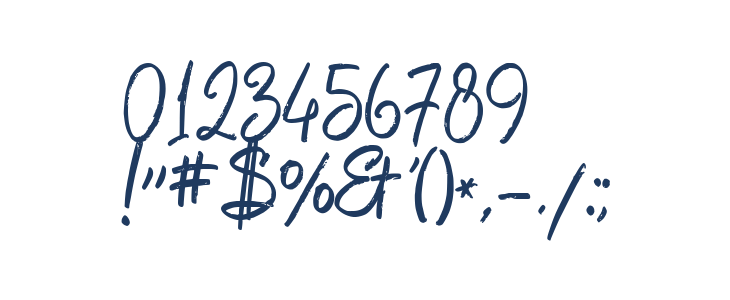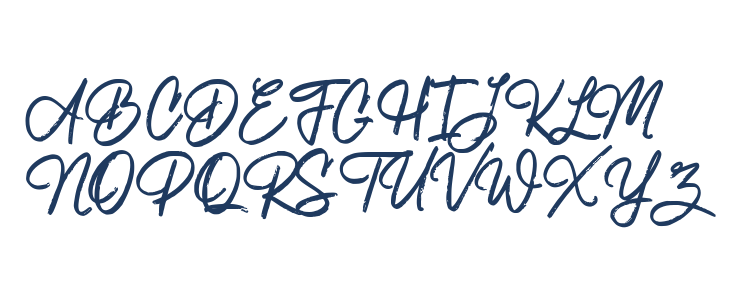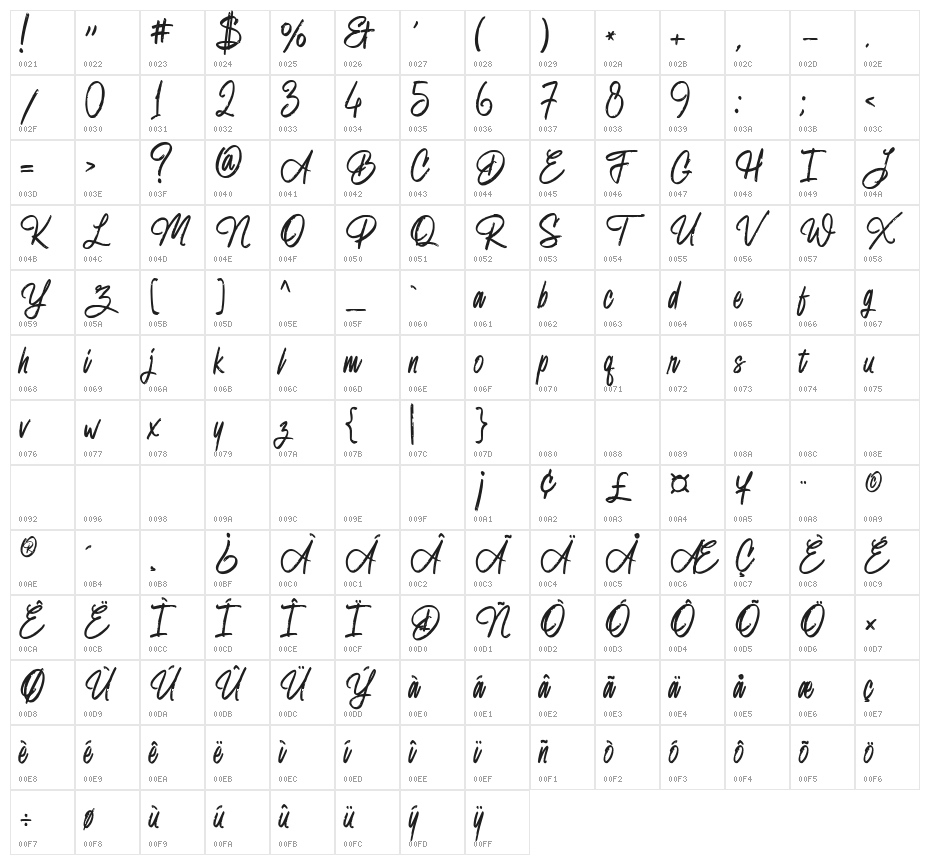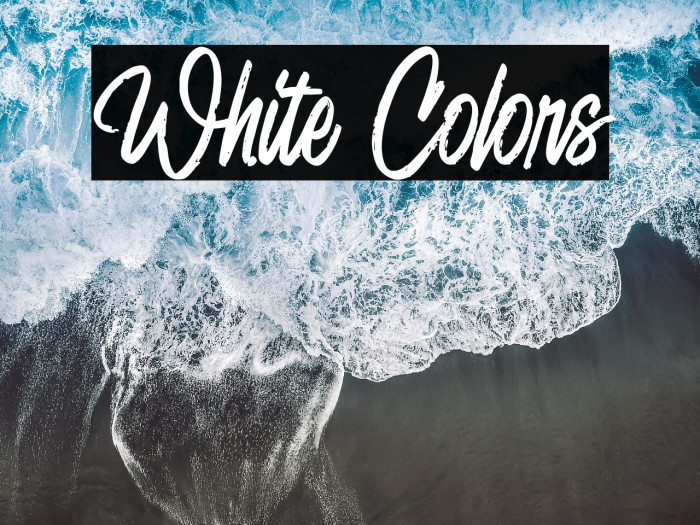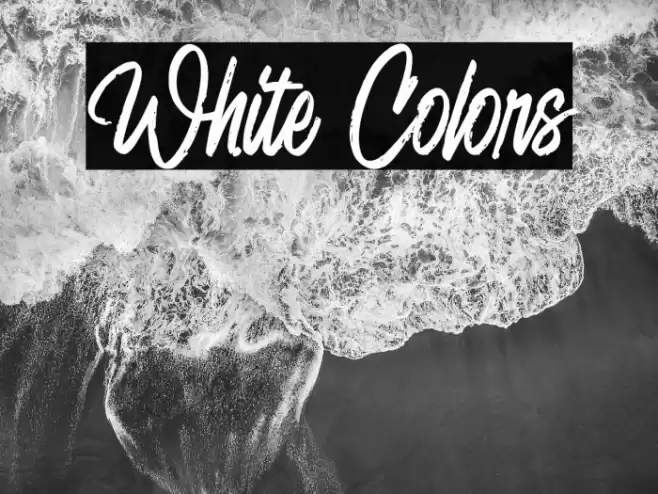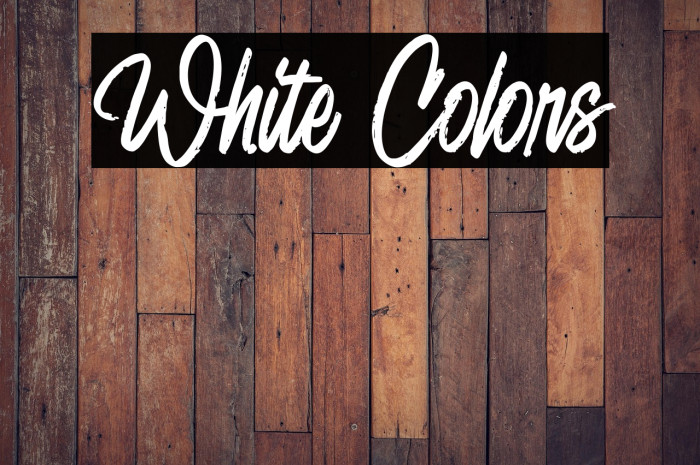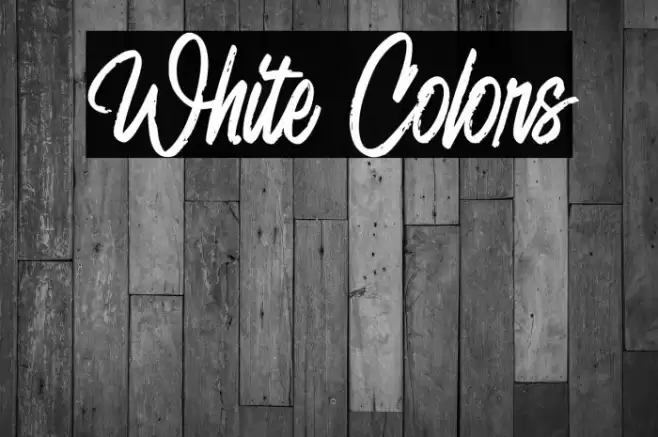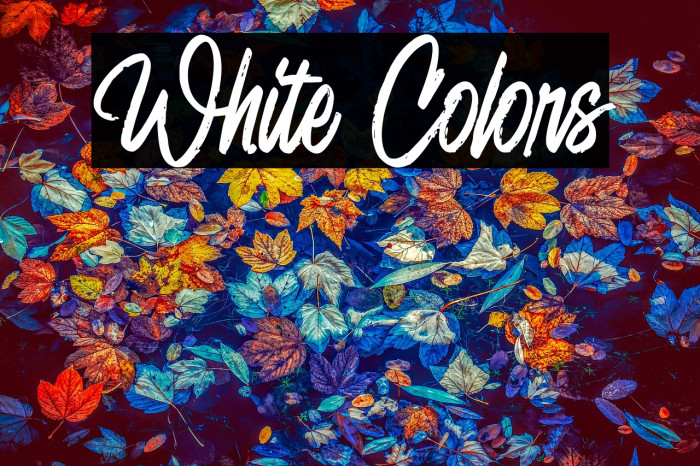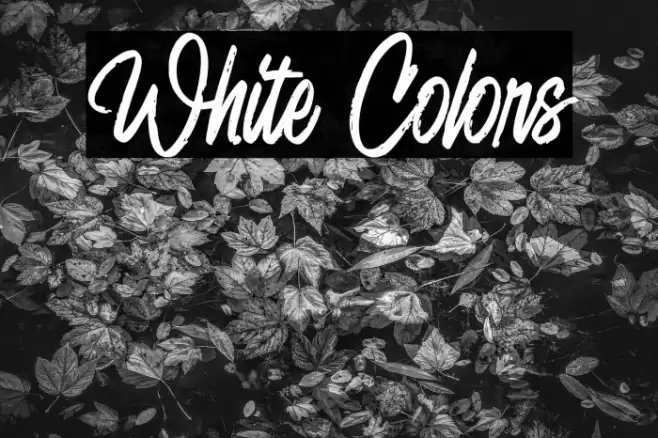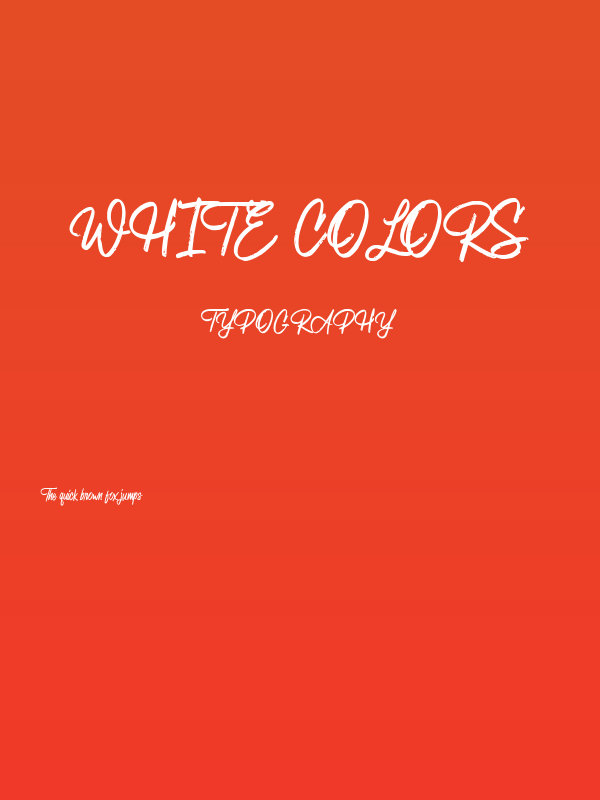
White Colors Font
White Colors Description
A bold, expressive script font with a hand-painted brush style, featuring irregular strokes and a textured, distressed appearance. Uppercase letters are ornate and flowing, while lowercase letters are dense and dynamic, maintaining a casual yet artistic feel.
| Overall Style | Expressive, Artistic, Casual |
| Use Case | Headlines, Logos, Decorative text |
| Proposed Projects | Creative branding, posters, album covers, invitations, and artistic packaging. |